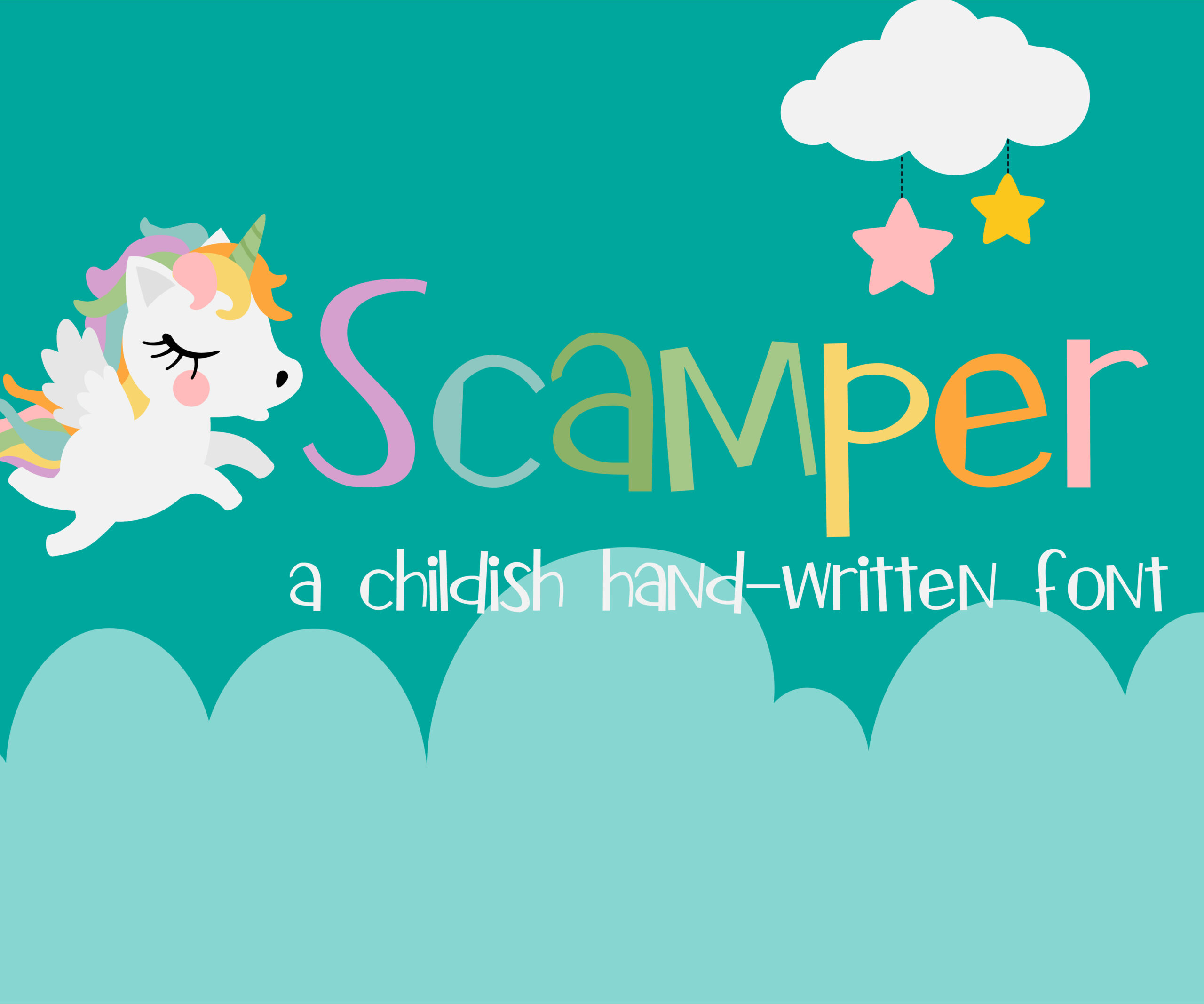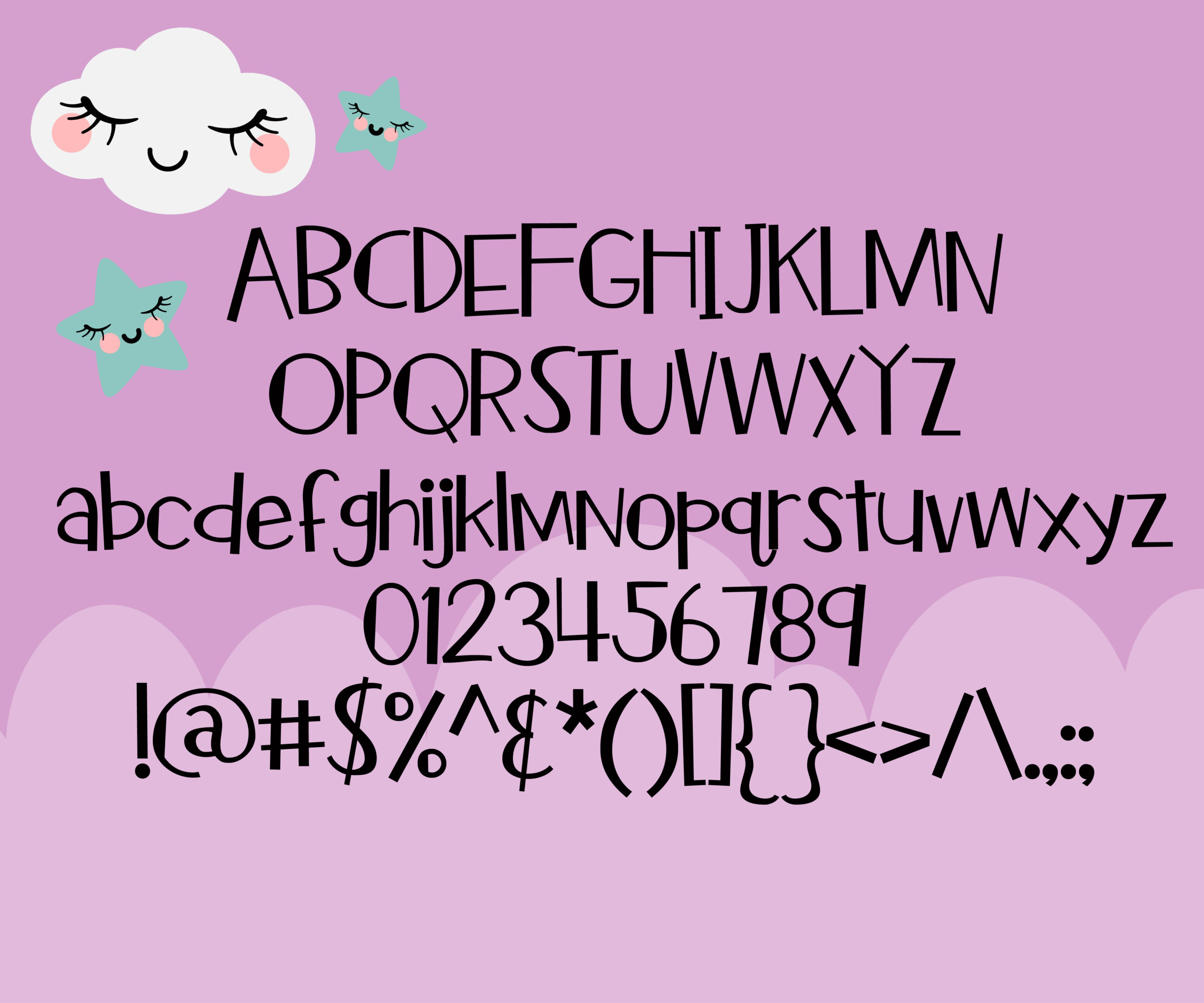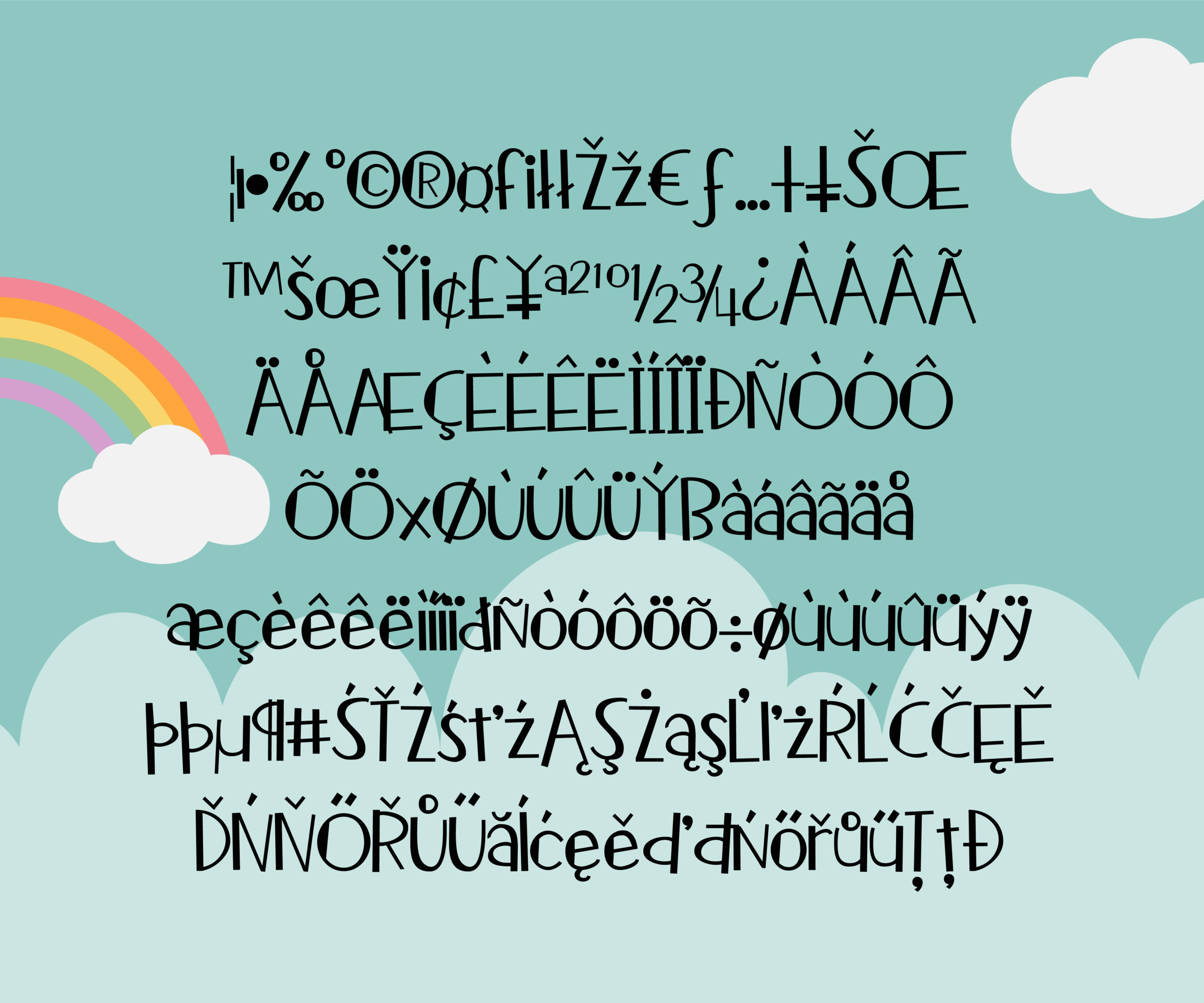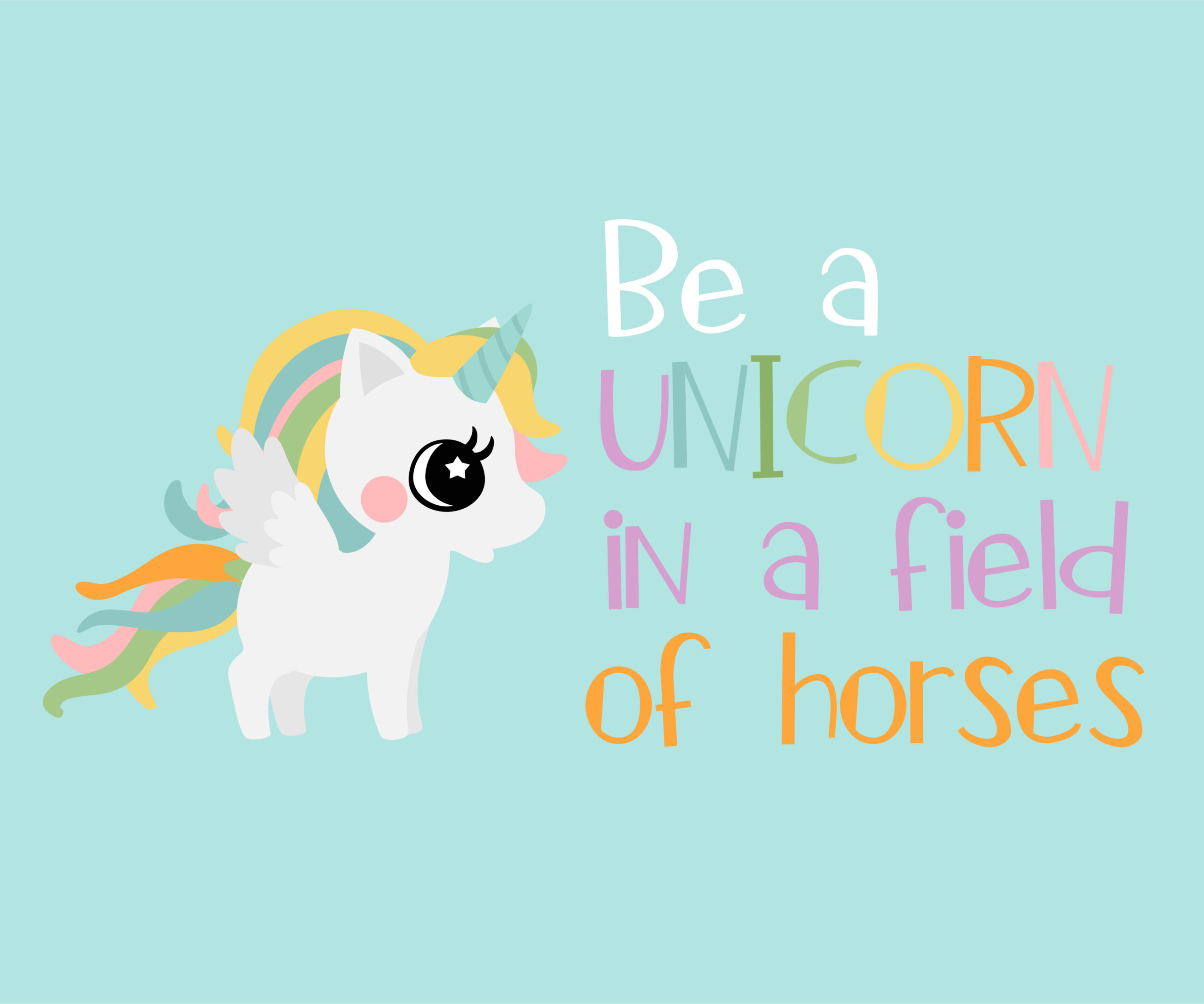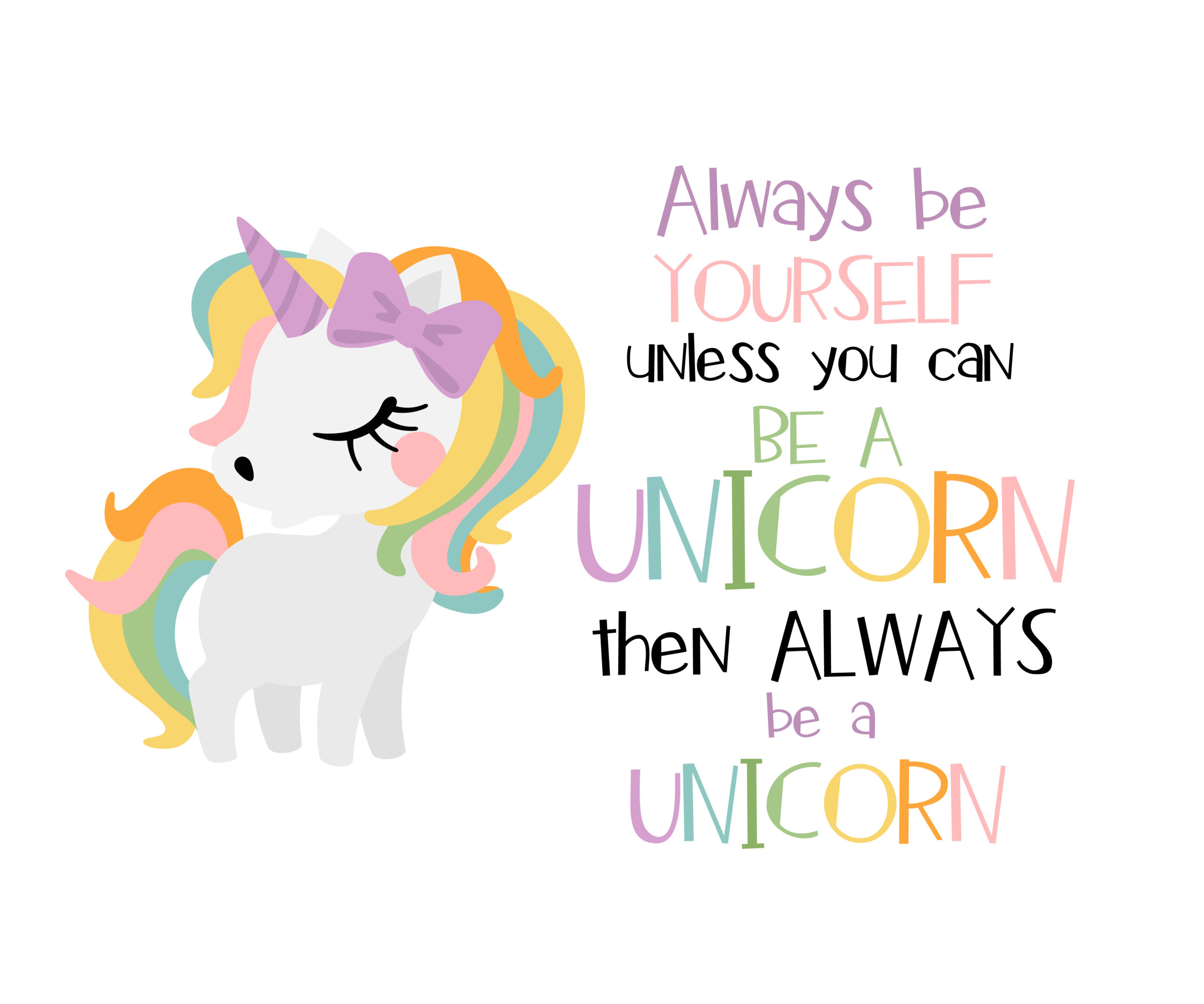
Scamper Font
About Scamper Font
Scamper is a child-like hand-written font has a very youthful and whimsical feel. Use to give your designs a kind-hearted vibe!